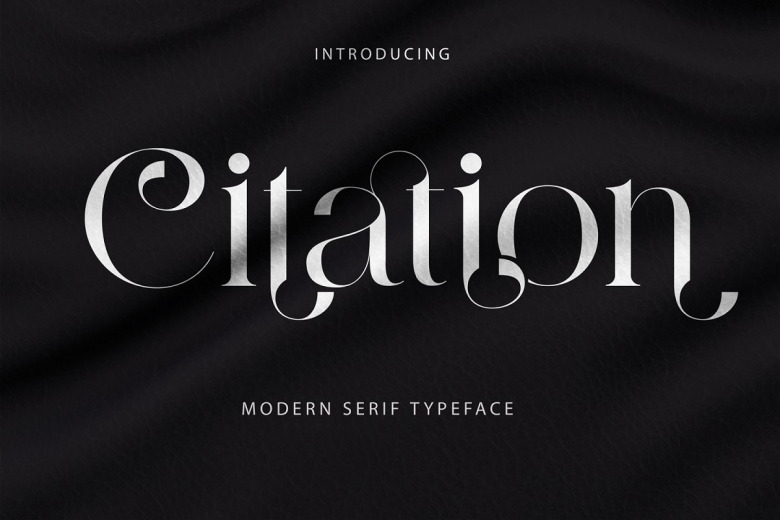
Citation Font
Citation Serif Font exhibits a refined yet freshly nuanced serif form, its style evocative yet with contemporary spirit. Crafted to answer the call for designs lovely, lithe, and modern in their allure, this typeface offers manifold means to manifest materials memorable. An assortment of exquisitely entwined letter pairs lend distinction and delicacy to all it touches. Ideal for logos luxurious, tomes terrific, or motion pictures most magnificent in vision, Citation Serif proves primed to elevate even ordinary offerings to opulent effect. Likewise lending itself to fashion, magazines, apparel, words of wisdom, and wide varieties more, none shall find it fails to bring flourish where it flows.
Citation Serif Font